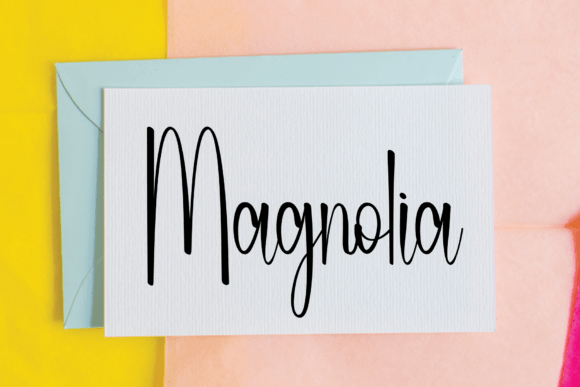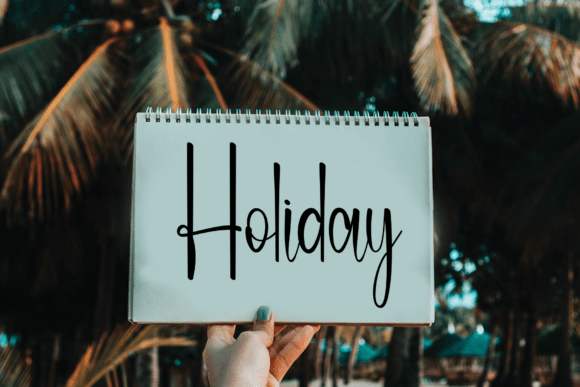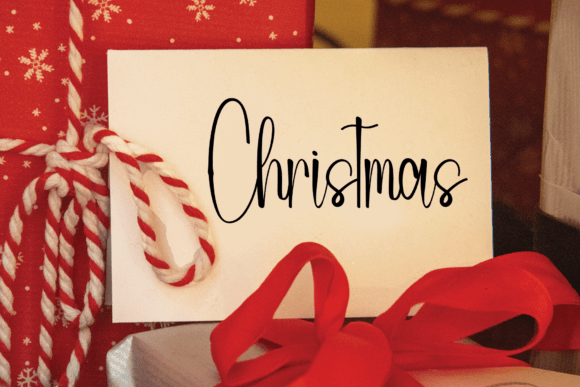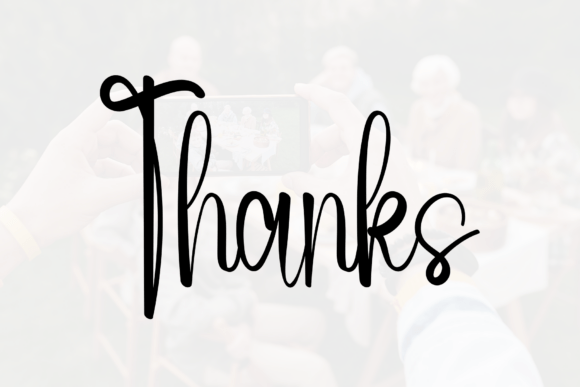
Introducing Harmony Valentine Font: The Sweetest Addition to Your Design Projects
Are you a designer or crafter looking for a font that exudes warmth, coziness, and playfulness? Look no further than Harmony Valentine Font! This beautiful handwritten font is designed to add a touch of sweetness to any design project, making it perfect for a variety of creative endeavors.
What Makes Harmony Valentine Font So Special?
Harmony Valentine Font is a unique and charming font that features characters that dance along the baseline, giving it a lively and whimsical feel. The font’s handwritten style is both elegant and approachable, making it suitable for a range of design projects, from romantic getaways and wedding invitations to crafts, DIY tutorials, and more.
Key Features of Harmony Valentine Font
- Sweet and Beautiful Handwritten Style: Harmony Valentine Font boasts a beautiful, cursive script that’s perfect for adding a personal touch to your designs.
- Characters that Dance Along the Baseline: The font’s unique design features characters that appear to be dancing along the baseline, giving your text a lively and playful feel.
- Coziness and Warmth: The font’s handwritten style and flowing curves evoke a sense of coziness and warmth, making it perfect for designs that require a personal and inviting touch.
- Easy to Read and Versatile: Despite its whimsical nature, Harmony Valentine Font is easy to read and can be used for a variety of design projects, from titles and headings to body text.
Harmony Valentine Font is an excellent choice for designers and crafters who want to add a touch of personality to their work. Whether you’re creating:
- Wedding Invitations and Stationery: Add a romantic touch to your wedding designs with this beautiful font.
- Crafting and DIY Tutorials: Use Harmony Valentine Font to add a personal touch to your crafting and DIY tutorials.
- Social Media Graphics and Posts: Make your social media graphics and posts stand out with this unique and eye-catching font.
- Branding and Packaging: Use Harmony Valentine Font to add a touch of warmth and personality to your brand’s packaging and marketing materials.
Tips for Using Harmony Valentine Font
To get the most out of Harmony Valentine Font, here are a few tips:
- Pair with Other Fonts: Combine Harmony Valentine Font with other fonts to create a unique and visually appealing design.
- Experiment with Colors: Play around with different colors to find the perfect match for your design.
- Use it Sparingly: Use Harmony Valentine Font sparingly to add emphasis and create visual interest in your design.
Harmony Valentine Font is a sweet and beautiful addition to any design project. Its unique handwritten style, lively characters, and cozy feel make it perfect for designers and crafters who want to add a touch of personality to their work. Whether you’re creating wedding invitations, crafting tutorials, or social media graphics, Harmony Valentine Font is sure to make your designs stand out.